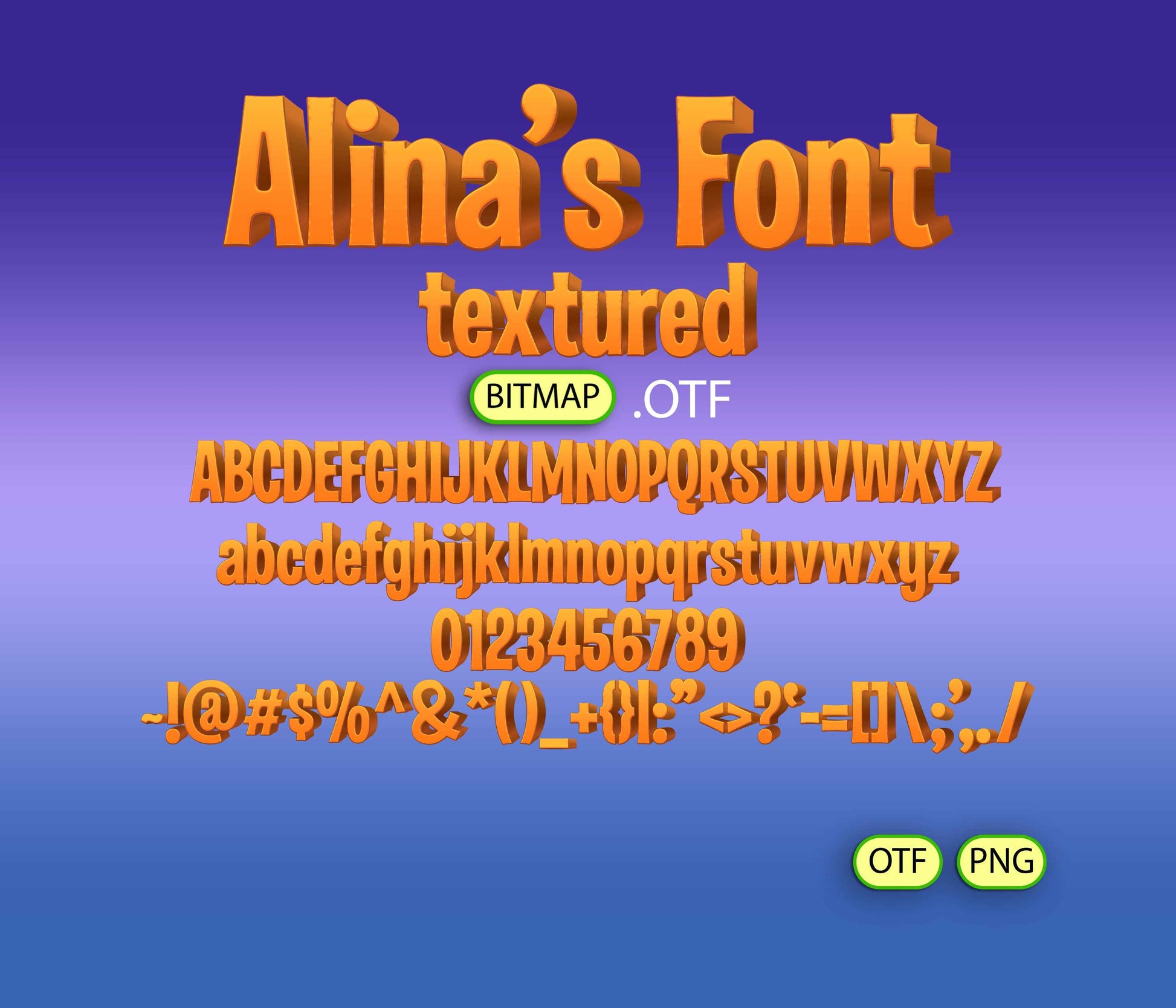
Mischief Makers 4 Font Textured
Mischief Makers 4 Font
Join the fun with our Mischief Makers 4 font, inspired by an animated reformed villain, his helpers, and their adventures. This font captures the series' playful spirit, allowing fans to add a touch of their favorite comedy to their projects.
What is the Mischief Makers 4 Font?
This font emulates the playful typeface of the Mischief Makers franchise. It reproduces the dynamic style of the movie’s visuals, including the logo and character names. The extensive character set includes alphabets, numbers, and special characters, capturing the movie's charm.
The Mischief Makers font goes beyond text, capturing the franchise's fun and heart. It's a tribute to creativity and imagination, offering fans a link to a whimsical world. Perfect for personal or commercial use, this font adds enchantment to every project. Dive into the Mischief Makers universe and let your designs sparkle with mischief and family love.